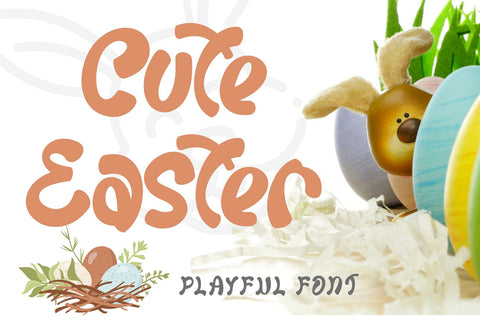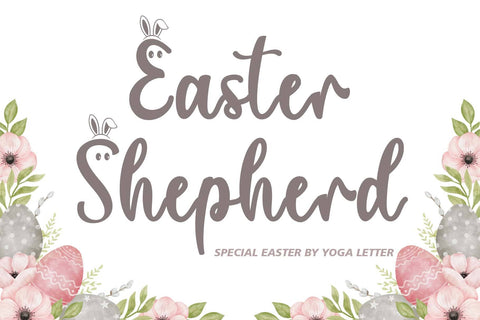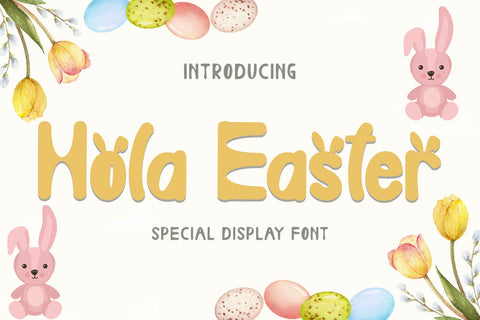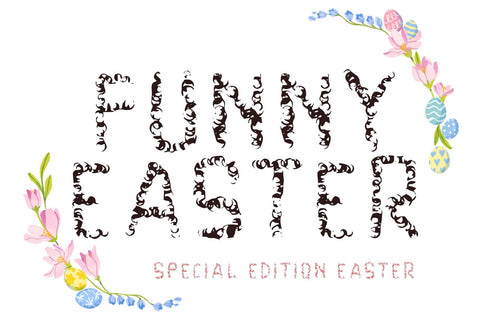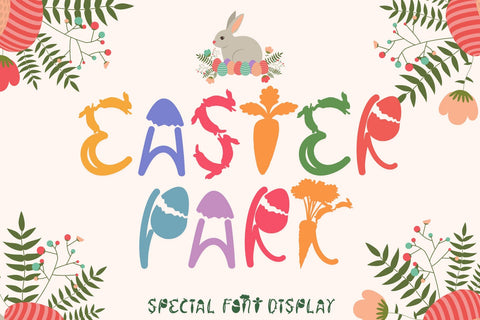
Easter Font Bundle
Our first exclusive pack is an installment of "Easter Font Bundle" filled with 30+ font display in 15 typeface...DISCOUNT 90% it amazing
This set include 30+ font in 15 typeface Easter font !!!
- Catty Funny
- Beautiful Easter
- Cute Easter
- Deflower
- Easter Chalk
- Easter Day
- Easter Park
- Easter Rabbit
- Easter Shepherd
- Easter Warmth
- Funny easter
- Holla Easter
- Smile Rabbit
- Soonday
- Yellow Easter
This bundle is perfect for a variety of projects such as christmas, weddings, designs, branding, logos, invitations, stationery, social media posts, advertisements, product packaging, product designs, labels, photography, valentine, easter, mother day, father day, watermarks, special events or whatever.